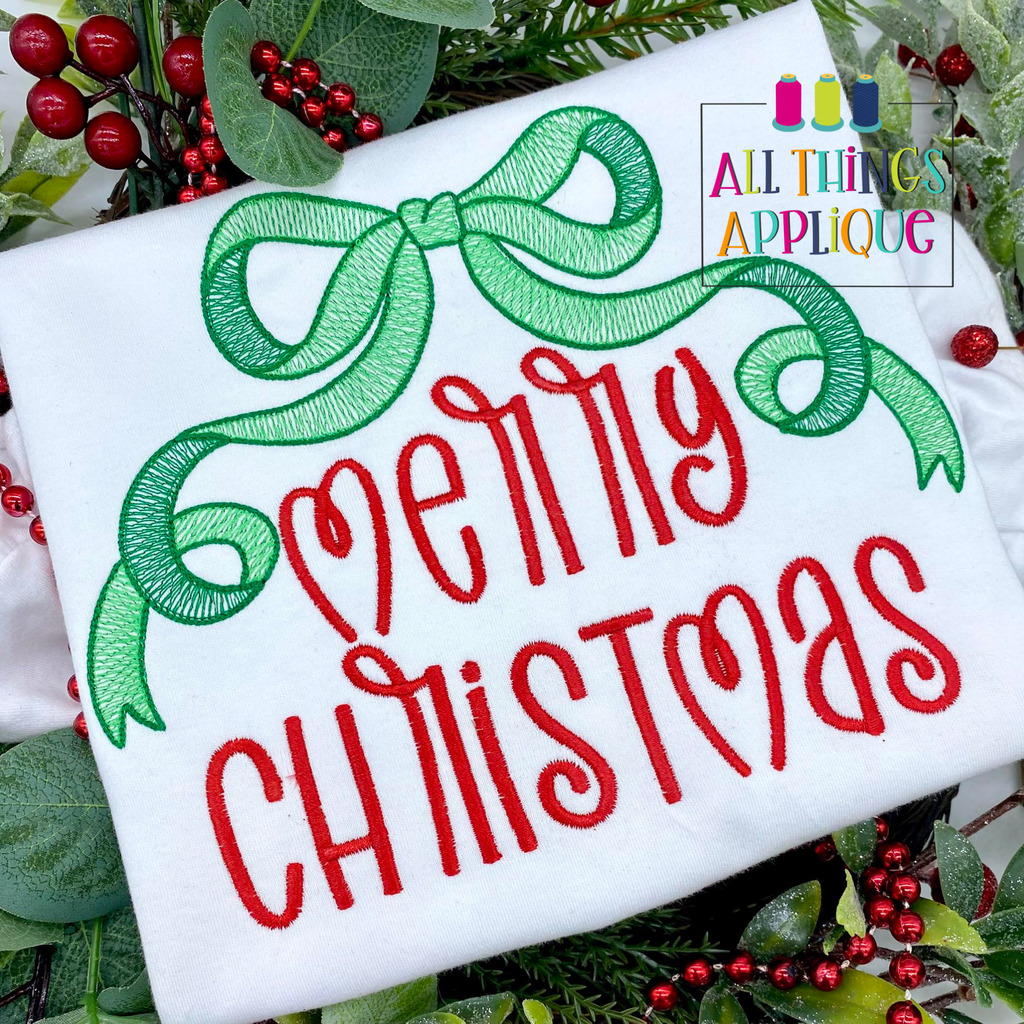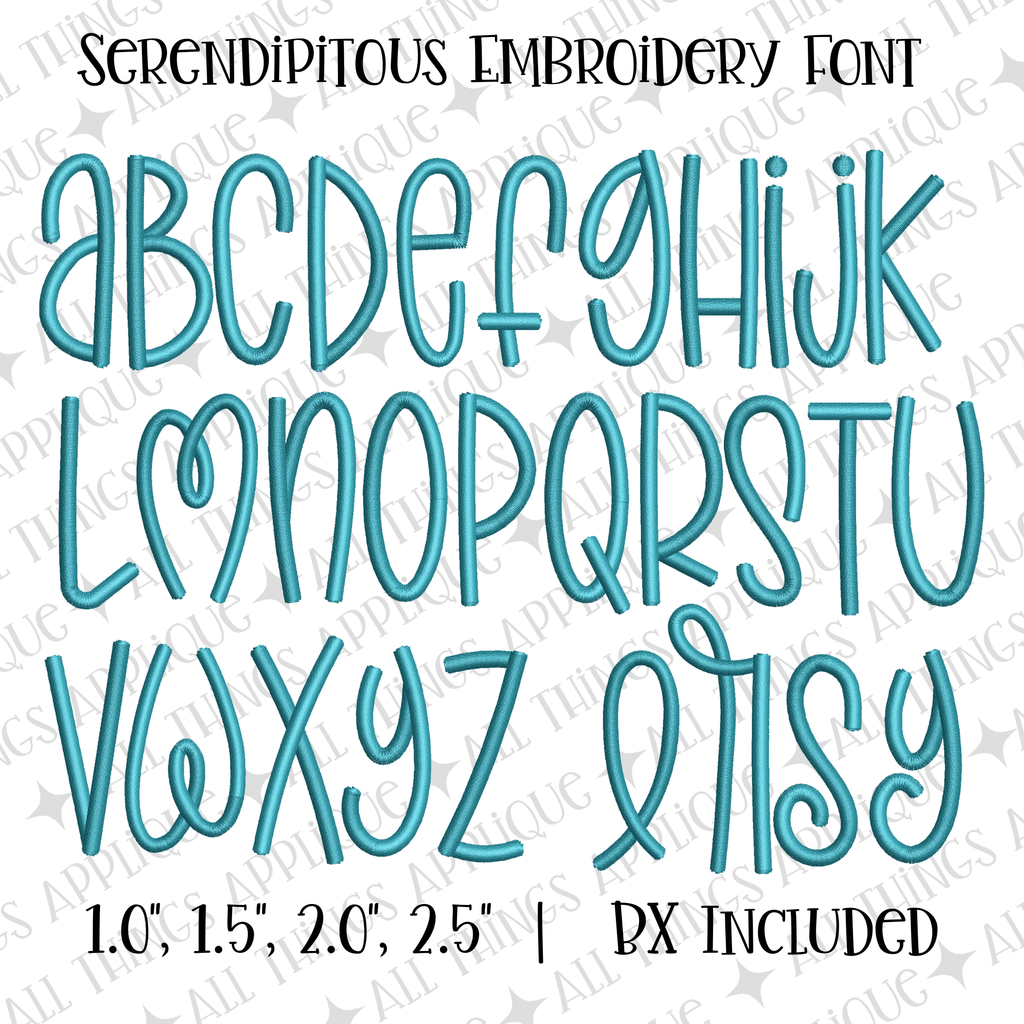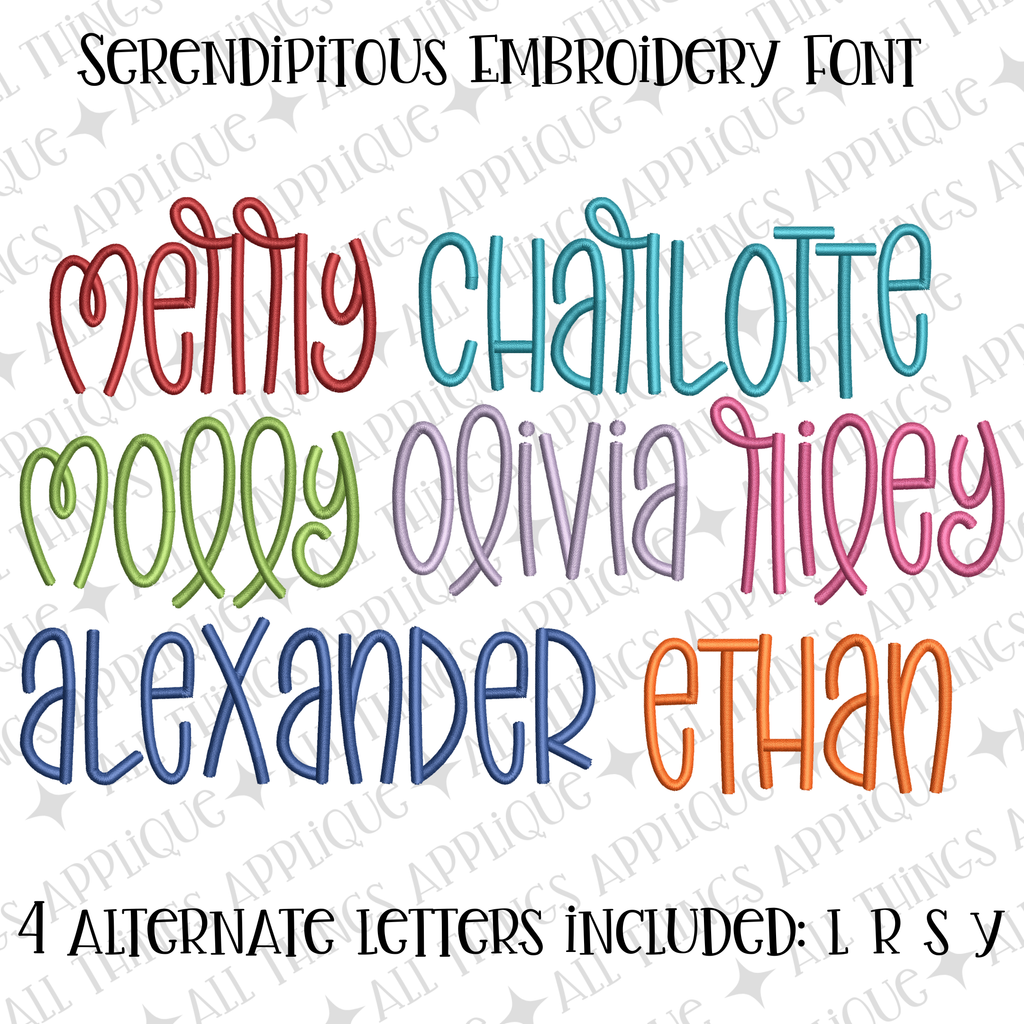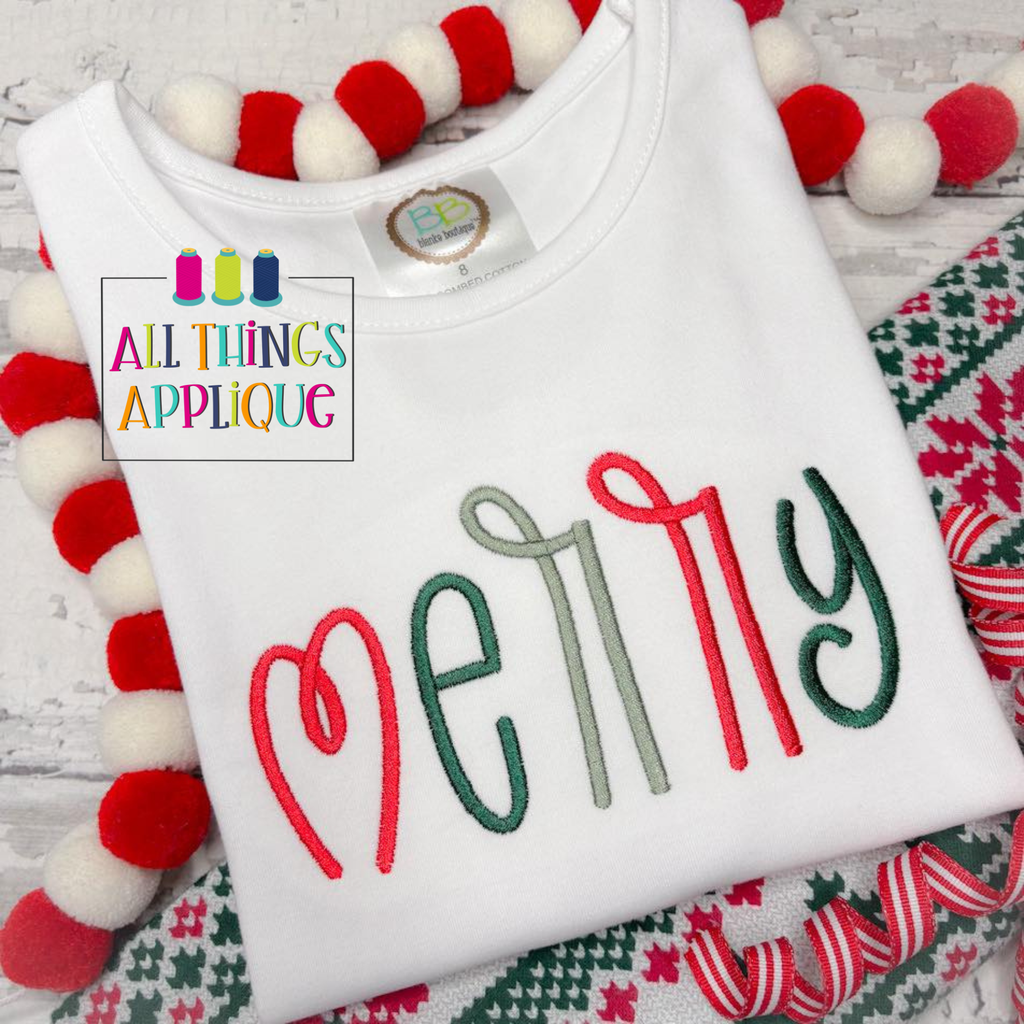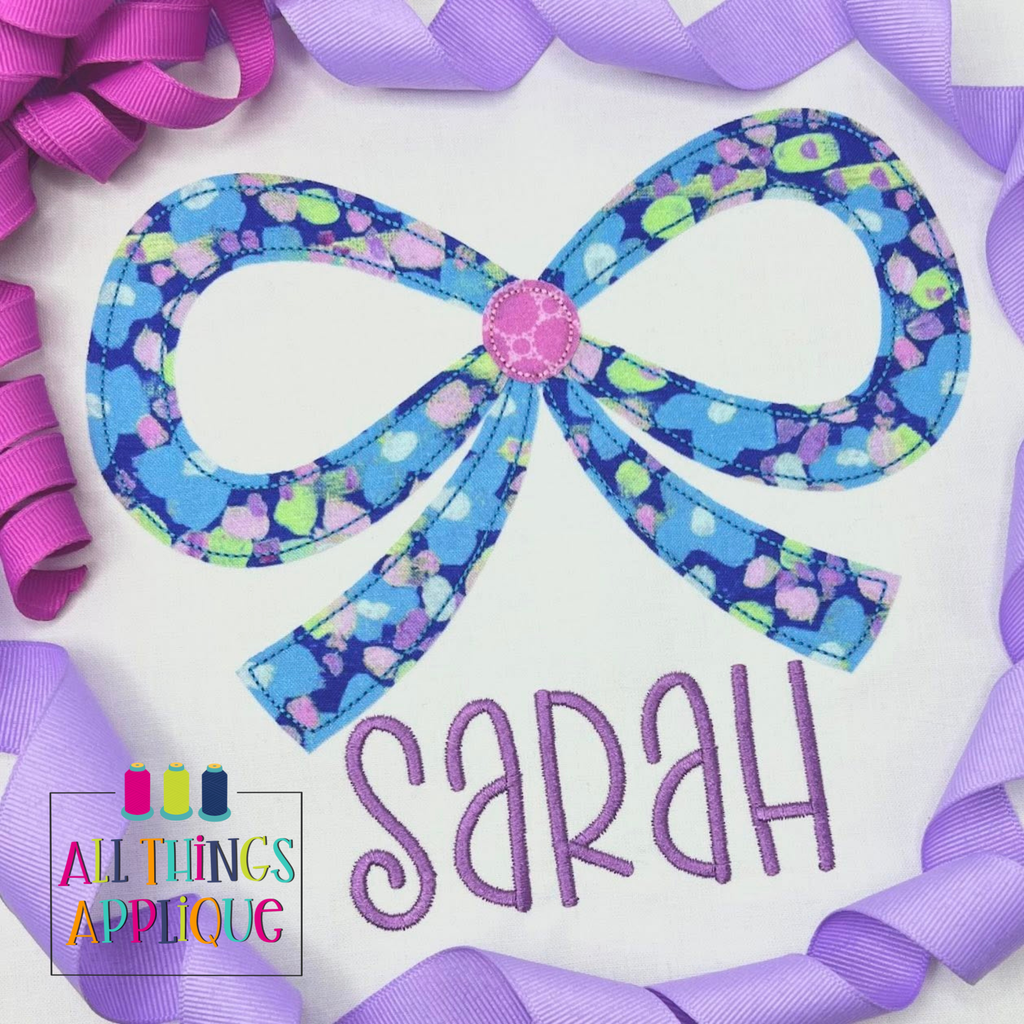
- Serendipitous Embroidery Font
About the Serendipitous Embroidery Font
Add a touch of whimsy to your embroidery projects with the Serendipitous Embroidery Font. Featuring playful loops and charming swirls, this font brings a joyful, creative flair to any design. Perfect for personalizing gifts, clothing, or home décor with a fun, lighthearted style.
This font includes 26 letters and 4 alternate letters.